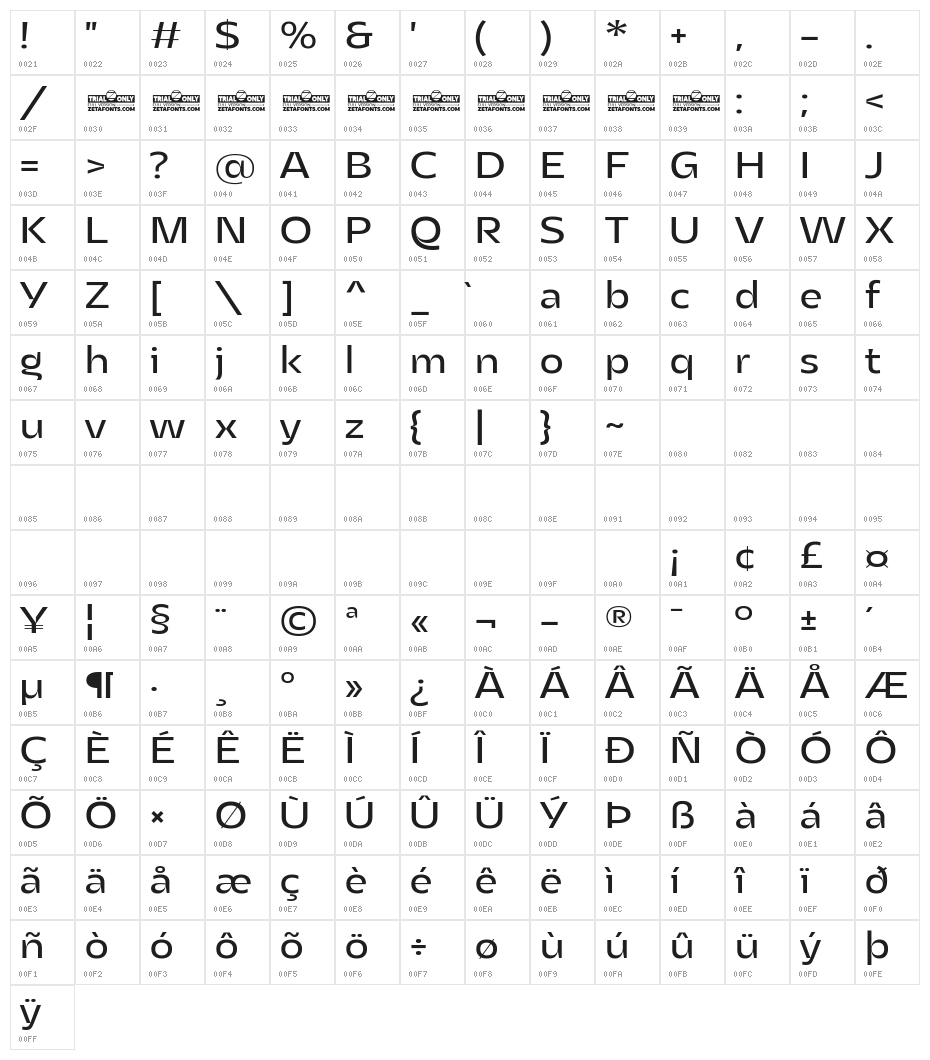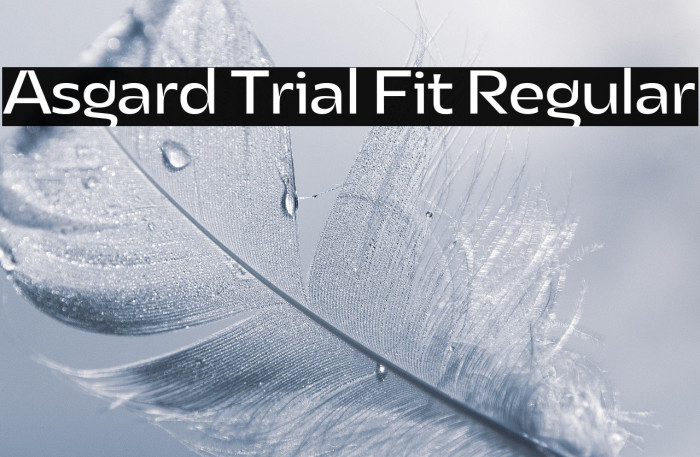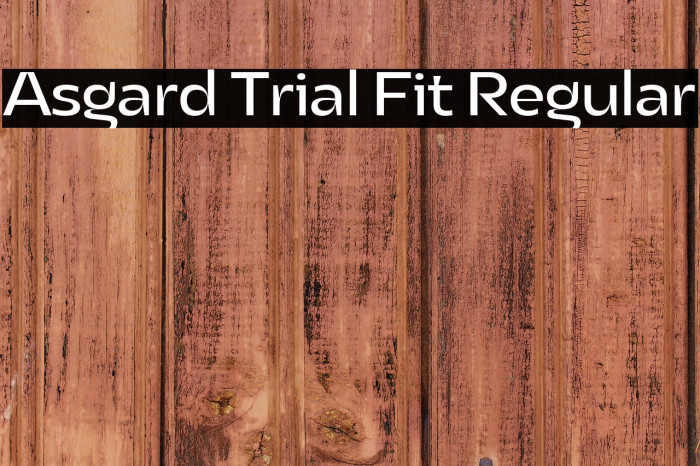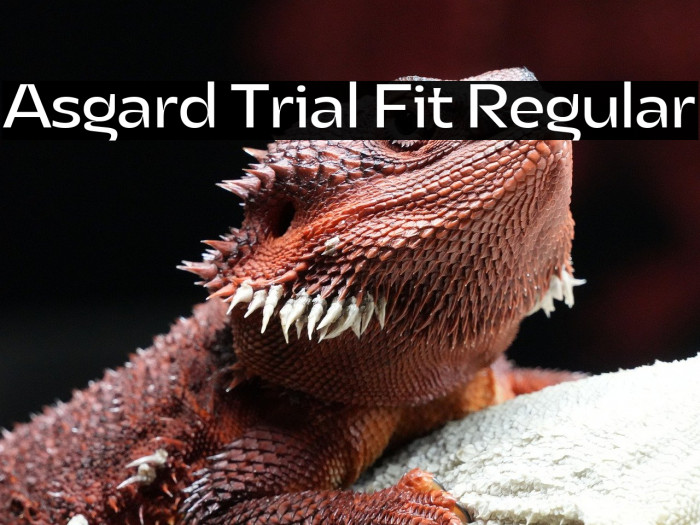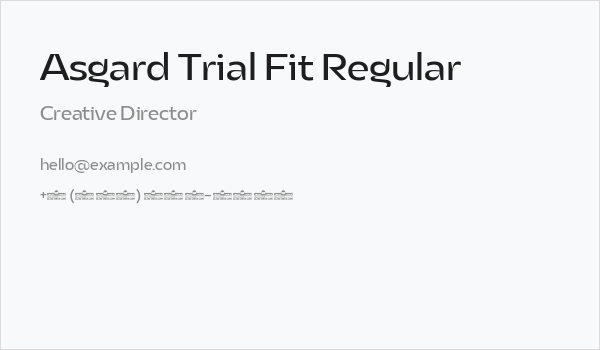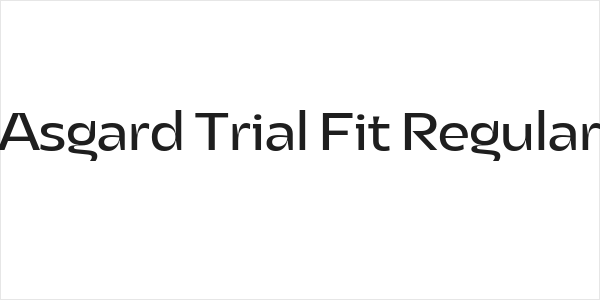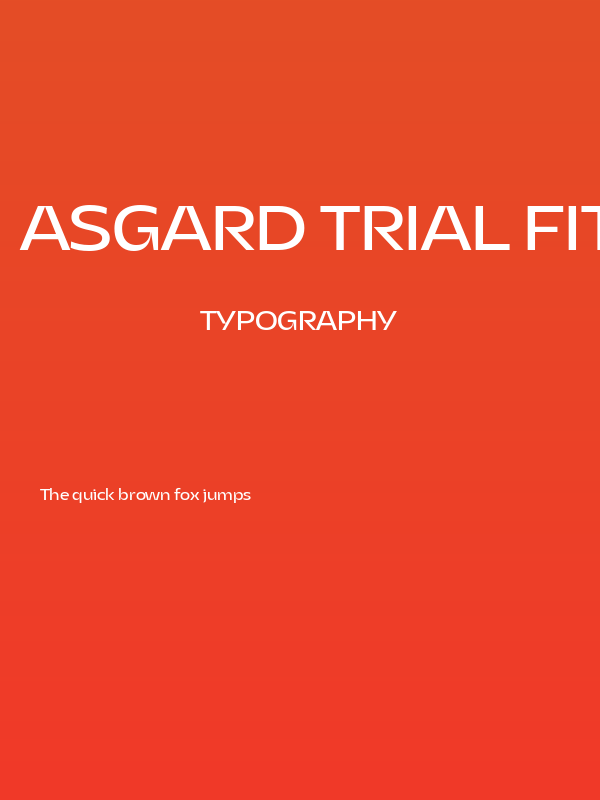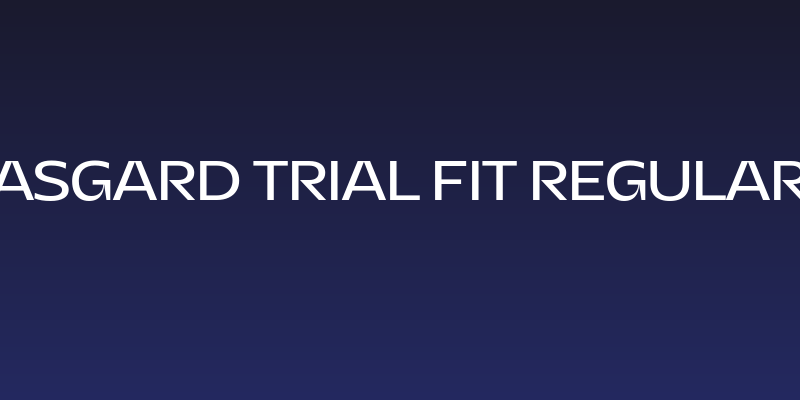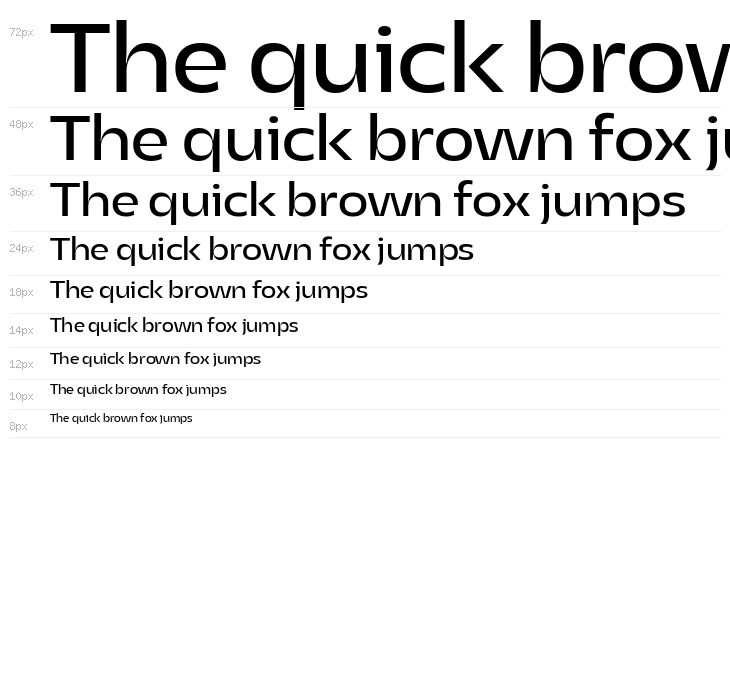
Asgard Trial Fit Regular Font
Asgard Trial Fit Regular Description
This font features a clean and modern sans-serif design with smooth curves and a balanced structure. The uppercase letters are bold and assertive, while the lowercase letters maintain a consistent flow with rounded edges. The numerals are clear and easily distinguishable, making them suitable for a variety of applications. Special characters are well-integrated, maintaining the font's overall aesthetic. The uniformity in stroke width provides a harmonious appearance, making it versatile for both digital and print media.